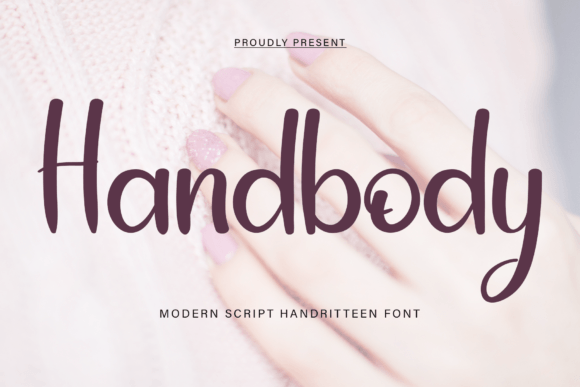
Have you ever been brainstorming a new project, and suddenly the perfect idea strikes you? Maybe it’s a birthday card for a loved one, a presentation for work, or a handmade craft for a friend. Whatever the idea, it’s the little details that can make it truly special – like the font you choose. That’s where the Handbody Font comes in, a modern handwritten font that’s sure to add a personal touch to any project.
As a designer, you know how important it is to have the right tools at your disposal. The Handbody Font is a valuable addition to any design toolkit, offering a unique and stylish way to express yourself. Whether you’re creating digital content, crafting handmade gifts, or designing presentations, this font has the potential to become your go-to choice.
Handbody Font Key Features
- Unique Characteristics: This font features a unique blend of handwritten and brush script elements, making it ideal for creative and artistic projects.
Handbody Font Review
Overall, I found the Handbody Font to be a visually appealing choice, particularly in its ✨ playful and modern aesthetic. The font’s rounded edges and subtle texture add a human touch that can make digital content feel more approachable and relatable. In the right context, it can be a great way to inject some personality into your designs.
- ✨ Unique and modern aesthetic that can add a touch of personality to designs
- ✨ Versatile font that can work well in both headings and body text
- ✨ Easy to read, even at smaller font sizes
- ⚠️ Limited language support, which may limit its use in multilingual designs
- ⚠️ May not be the best choice for formal or professional applications, due to its playful aesthetic
- ⚠️ Can be difficult to pair with other fonts, as its unique style may clash with more traditional choices
Overall, I would recommend the Handbody Font for designs that require a modern and playful touch. However, it may not be the best choice for every project, and designers should carefully consider its limitations before making a decision.
For optimal results, use Handbody Font for headings and titles, and a clear sans-serif font for body text.
- Graphic design and branding
- Typography-based art and illustrations
- Print and digital marketing materials
Alternatives to Handbody Font
Great Vibes Font is a beautiful, handwritten script font that works well for creating a friendly and approachable atmosphere. It is ideal for use in headings, titles, and quotes. Great Vibes Font has a more relaxed feel compared to Handbody Font, which is more modern and sleek.
Alex Brush Font is a elegant, handwritten font that is perfect for use in high-end designs, such as luxury brands and wedding invitations. It has a more refined and sophisticated feel compared to Handbody Font, which is more casual and playful.
Pacifico Font is a beautiful, modern script font that is perfect for use in designs that require a sense of relaxation and tranquility. It has a more laid-back feel compared to Handbody Font, which is more energetic and dynamic.
Dancing Script Font is a fun, energetic script font that is perfect for use in designs that require a sense of playfulness and creativity. It has a more whimsical feel compared to Handbody Font, which is more modern and sophisticated.
Q: Can I customize the Handbody Font for my specific project needs?